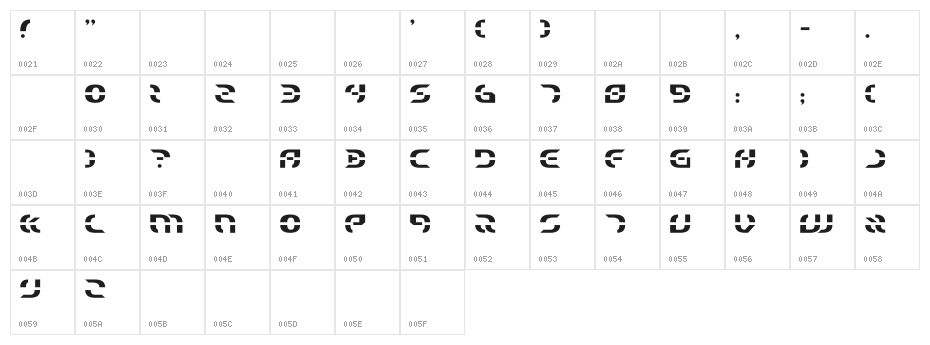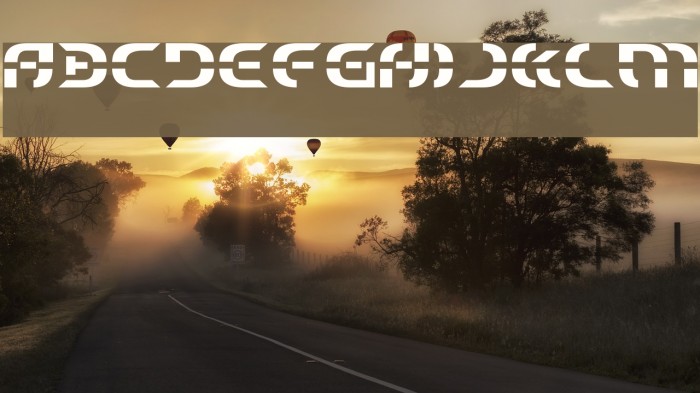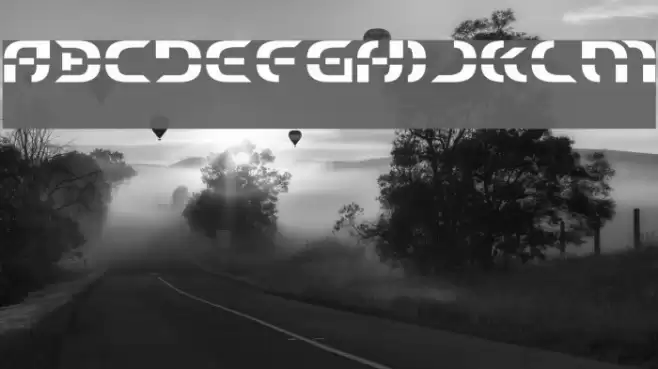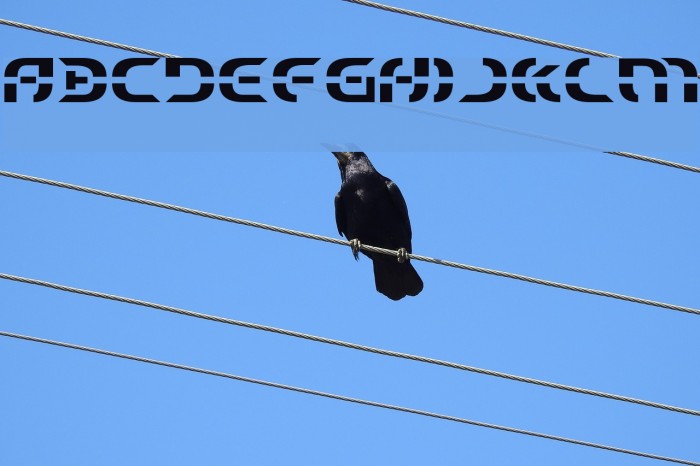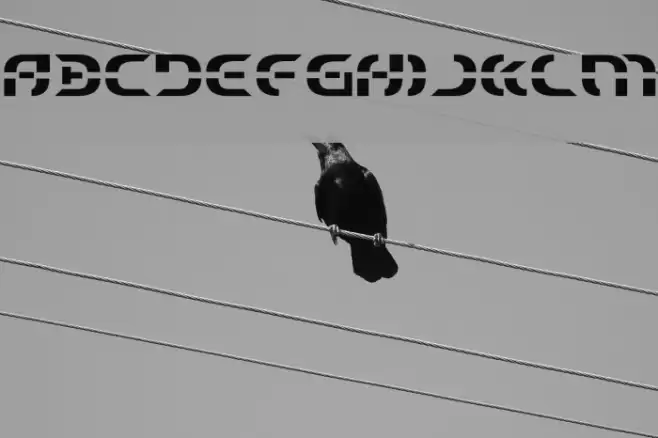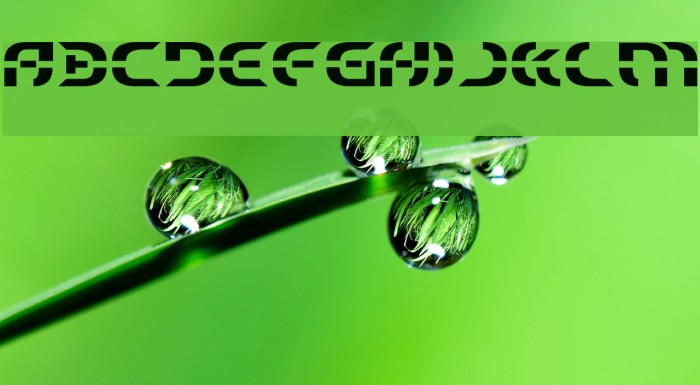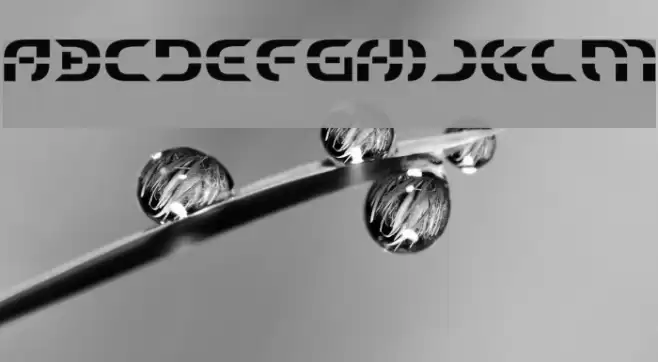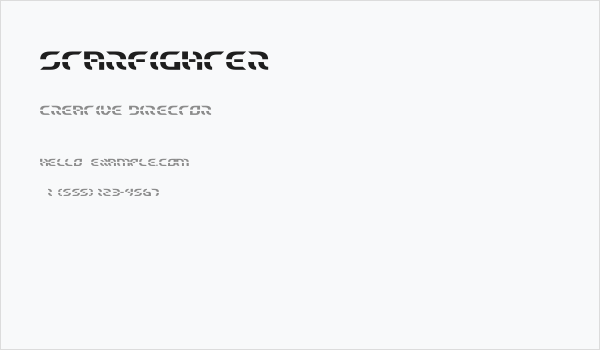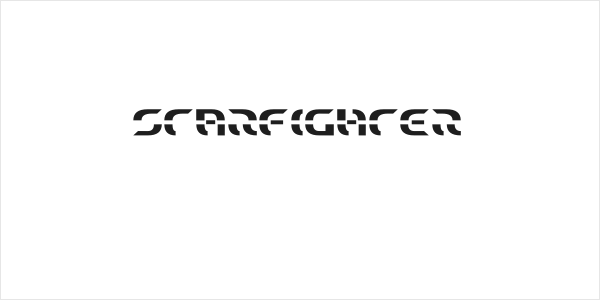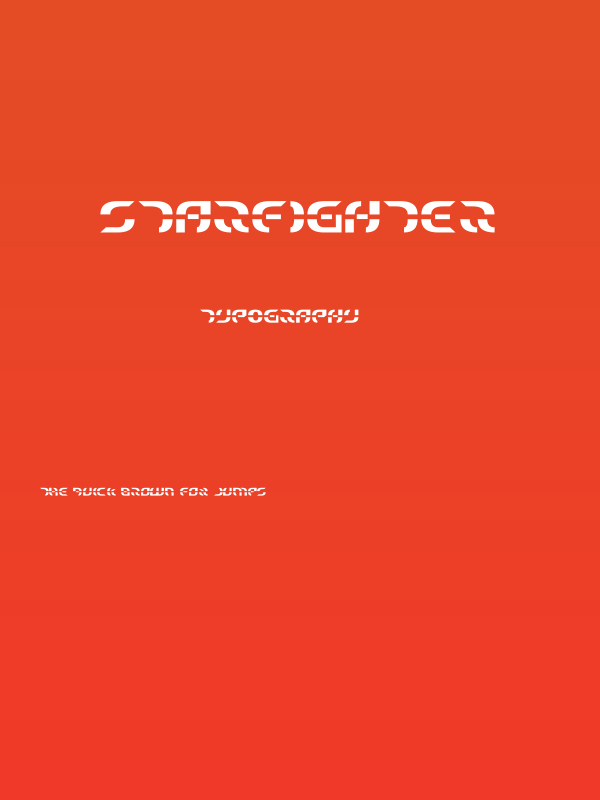
Starfighter Font
Starfighter Description
This font features a futuristic and geometric design, characterized by its bold and angular shapes. The letters are constructed with a combination of straight lines and curves, creating a dynamic and modern appearance. The font's unique style is reminiscent of science fiction themes, making it suitable for projects that require a cutting-edge and innovative look. The characters are evenly spaced, ensuring readability while maintaining a distinct visual impact. The font includes a full set of uppercase and lowercase letters, numerals, and a selection of special characters, all designed with the same cohesive aesthetic.
| Proposed Projects | Ideal for sci-fi themed posters, video game titles, tech branding, and futuristic design projects. |